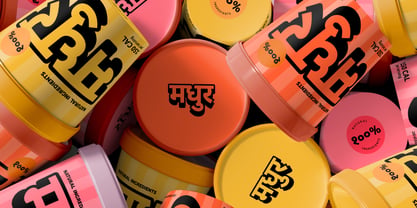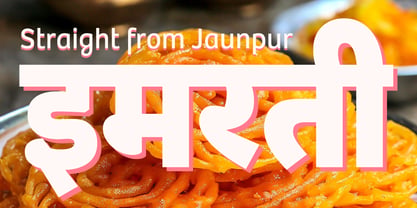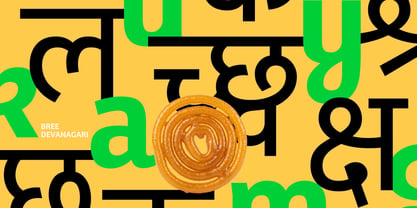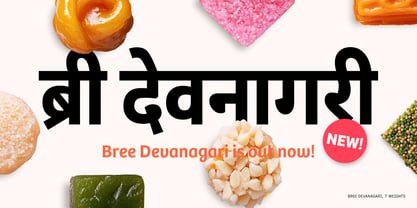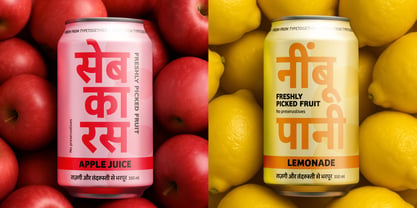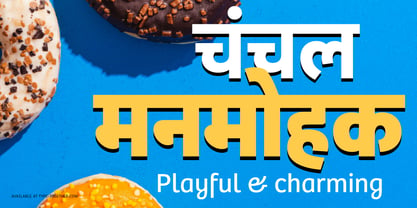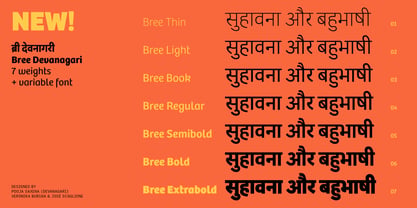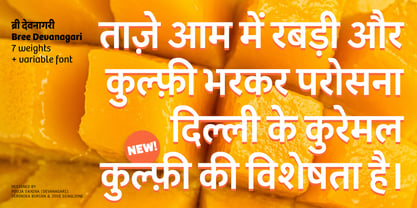
Bree Devanagari
La famille de polices Bree Devanagari a été conçue par Veronika Burian, José Scaglione, Pooja Saxena et publiée par TypeTogether. Bree Devanagari contient 7 styles et options de package familial. En savoir plus sur cette famille
Pooja Saxena's Devanagari companion for Bree combines calligraphic reminiscences with an even-tempered cadence to create a design that is equal parts affable and readable. Graphic designers and readers alike will love its friendly, easygoing nature.
Concepteurs: Veronika Burian, José Scaglione, Pooja Saxena
Veronika Burian and José Scaglionemet and developed a respectful kinship while completing their Master’s degrees in type design at University of Reading, UK. Established in 2006, TypeTogether is an independent, cosmopolitan type foundry that creates text typography for intensive digital and print editorial use. We have grown into a core team living worldwide and invested in the daily work, networked with other type designers who intermittently cooperate on specific projects. Through our unique, diverse, curated font platform, TypeTogether creates innovative and stylish solutions to the greatest problems in the professional typography market. The advantage of being a small but highly specialized company is that we are able to work closely with our clients to accomplish their goals and to respond quickly to their requirements. To carry an organisation’s unique voice across all communications, TypeTogether creates custom type solutions for discerning clients worldwide. Distinct advantages in your market can be gained through logotype creation, commissioning a brand new typeface, modifying existing typefaces, or extending language support. TypeTogether creates cross-platform OpenType fonts of recognised aesthetic and technical excellence and which perform well in continuous reading. Our internationally awarded catalogue — honoured for its high quality, usefulness, personality, and ability to grab attention — spans many languages and scripts and is diligently expanding each year.